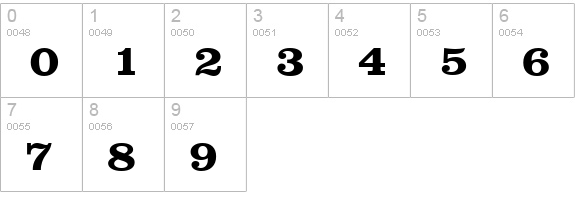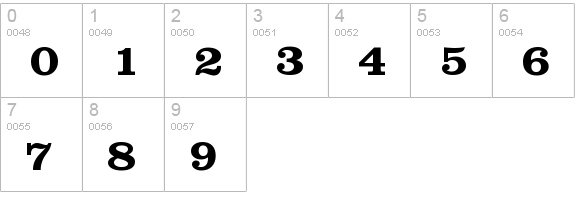
ClareSerial-Xbold Font Details
ClareSerial-Xbold font is a striking display typeface that exudes power and elegance. With its bold and commanding presence, this font is perfect for making a statement in headlines, logos, and other design projects. The sharp edges and strong lines of ClareSerial-Xbold give it a modern and dynamic feel, making it ideal for projects that require a bold touch. The best part? ClareSerial-Xbold is available for free download at FontsMarket.com, allowing you to access this impressive typeface without any cost. Whether you're a designer looking to add a touch of sophistication to your work or a business seeking a font that demands attention, ClareSerial-Xbold is sure to make a lasting impression. Download it today and elevate your designs with this eye-catching and powerful font.